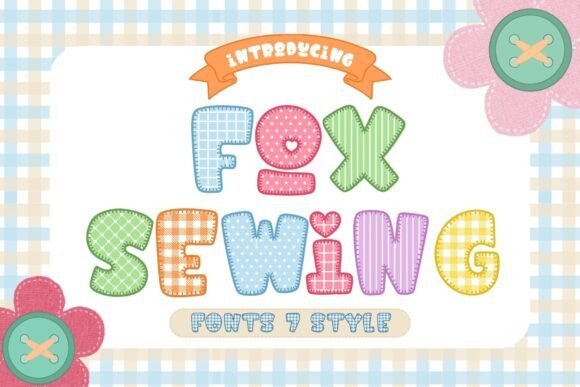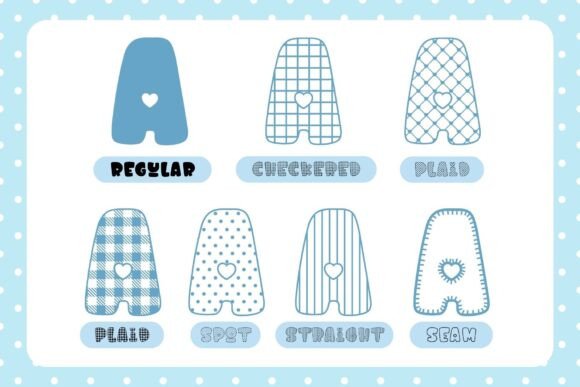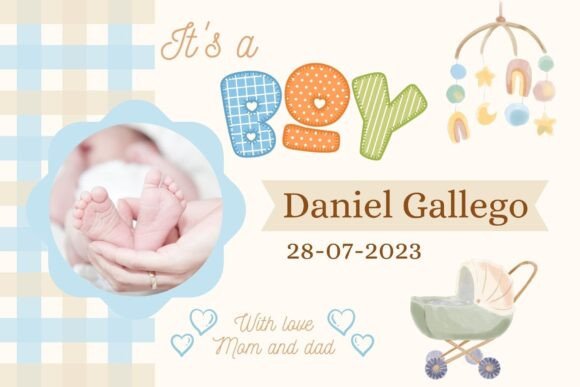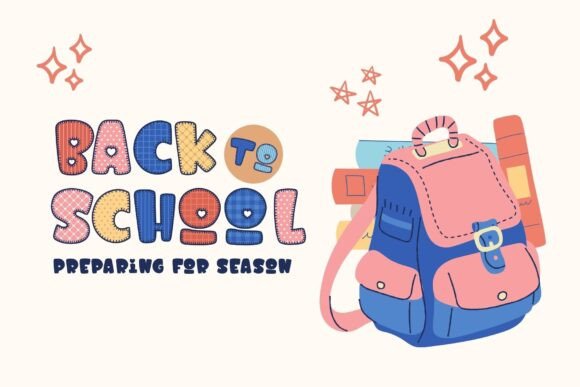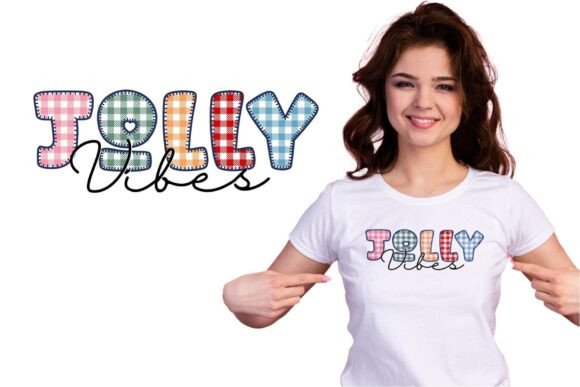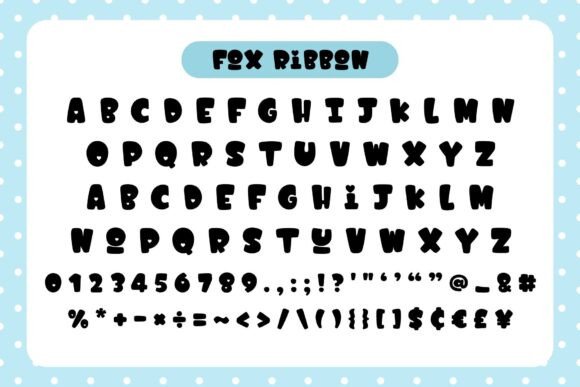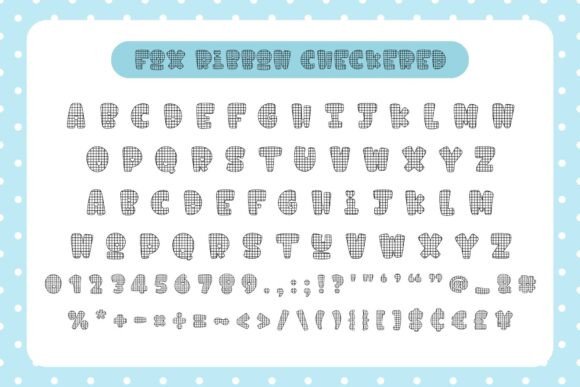
Bring a Playful Touch to Your Designs with Fox Sewing Font
Have you ever found yourself stuck in a creative rut, desperately searching for the perfect font to bring your design to life? I know I have. One day, while working on a children’s book project, I stumbled upon Fox Sewing Font, and it instantly sparked a wave of inspiration. This charming font family is more than just a pretty face – it’s a versatile tool that can elevate your designs and make them truly unforgettable.
With 7 unique styles to choose from, Fox Sewing Font is perfect for adding a playful touch to your designs. Whether you’re working on holiday-themed creations, children’s projects, or anything that needs a fun and cute aesthetic, this font will fit right in. Its value lies in its ability to add a personal touch to your work, making it stand out from the crowd.
Fox Sewing Font Key Features
- Unique Characteristics: The Fox Sewing Font features intricate, hand-drawn designs inspired by traditional sewing and embroidery patterns, adding a touch of elegance and sophistication to any project.
- Character Set: The font includes a comprehensive set of characters, including uppercase and lowercase letters, numbers, punctuation marks, and special symbols, making it suitable for a wide range of applications.
- Style Options: The Fox Sewing Font comes in multiple styles, including solid, outline, and fill versions, allowing designers to customize their projects to suit their needs.
- Scalability: The font is designed to be highly scalable, making it suitable for use in a variety of contexts, from small embroidery designs to large-scale sewing projects.
Review: Fox Sewing Font
As a graphic designer, I was excited to test the Fox Sewing Font, a font specifically designed for sewing patterns and crafty projects. Here’s my honest review.
- The font is extremely readable, even at small sizes. This is perfect for sewing patterns where clarity is crucial.
- The font is available in a range of weights, from light to bold, making it versatile for different design needs.
- The font is well-suited for sewing and crafty projects, with a clear and modern aesthetic.
- The font may not be the most creative or unique option for non-sewing projects. It’s specifically designed for a niche market.
- The font doesn’t come with a wide range of international characters or symbols, which may be a limitation for designers working on projects with non-English text.
The Fox Sewing Font is a solid choice for sewing and crafty projects. It’s easy to read, versatile, and well-suited for its intended purpose. However, it may not be the best option for designers working on broader projects or requiring more creative flexibility.
The Fox Sewing Font is perfect for crafting, sewing, and quilting-related designs. Use it to create a vintage or retro feel in your designs. Experiment with different font sizes and colors to add visual interest.
The Fox Sewing Font is ideal for:
- Crafting and sewing-related designs.
- Vintage or retro-themed designs.
- Quilting and sewing patterns.
- Labels and tags for handmade crafts.